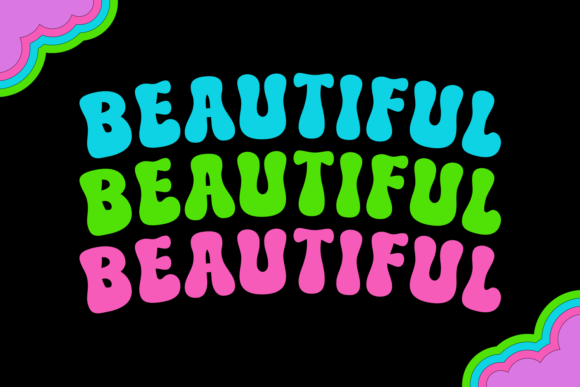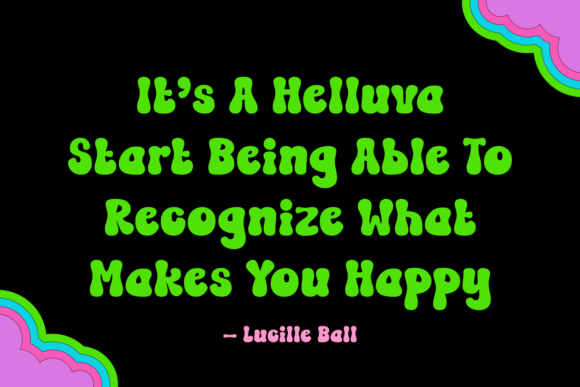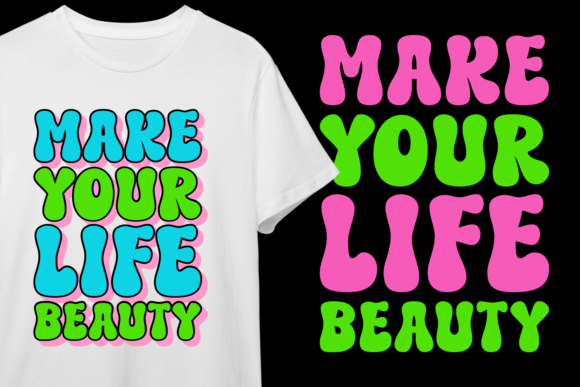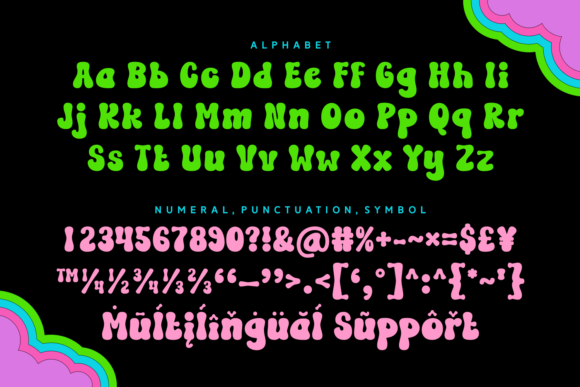
Getting Inspired with Magic Charm Font
Do you ever find yourself browsing through Pinterest, Instagram, or your favorite design blogs, and suddenly you come across a typography that just speaks to your soul? Maybe it’s a quirky font used on a sign, or a beautiful hand-drawn script on a wedding invitation. For designers, those ‘aha’ moments are what make our job so rewarding. And today, we’re excited to share with you a new design resource that’s sure to spark some creativity – the Magic Charm Font.
As a designer, you know that the right font can elevate a project from good to great. And the Magic Charm Font is no exception. With its cute and chubby design, this display font is perfect for creating captivating typography for a wide range of creative projects, from posters and apparel to websites and advertisements.
Key Features of Magic Charm Font
- Unique and Whimsical Design: The Magic Charm Font is a one-of-a-kind design resource perfect for adding a touch of magic to your creative project.
- High-Quality Typography: This font boasts high-quality typography with precise letterforms and a consistent design aesthetic.
- Resolution-Independent: The Magic Charm Font is designed to be resolution-independent, allowing it to look great at any size or resolution.
- Perfect for Digital and Print Projects: The Magic Charm Font is ideal for use in both digital and print projects, from social media graphics to posters and more.
Honest Review: Magic Charm Font
I recently stumbled upon the Magic Charm Font, a beautiful design resource that caught my attention. As a designer, I’m always on the lookout for high-quality fonts to elevate my creative projects. The Magic Charm Font definitely delivers.
Here are some things that work well: ✨
- Unique and whimsical design style, perfect for adding a touch of magic to your designs
- Transparent background makes it easy to use in a variety of creative projects
- Only comes in a limited number of styles and weights, which might be a drawback for some designers
- Not suitable for serious or formal designs, as it’s quite playful and whimsical
Overall, I’m impressed with the Magic Charm Font. It’s a great addition to any designer’s toolkit, especially for creative projects that need a touch of magic. While it’s not perfect, it’s definitely worth checking out if you’re looking for a high-quality, free font to spice up your designs.
The Magic Charm Font is a high-quality, free download that can elevate any creative project. With its unique and eye-catching design, it’s perfect for adding a touch of magic to your designs.
Tips for Getting the Most Out of Magic Charm Font
To get the most out of the Magic Charm Font, use it with a transparent background to create a seamless design. You can also combine the font with other design elements, such as illustrations or graphics, to create a unique and creative look.
The Magic Charm Font is perfect for use in a variety of creative projects, including:
- Party decorations and signage
- Personalized gifts and merchandise